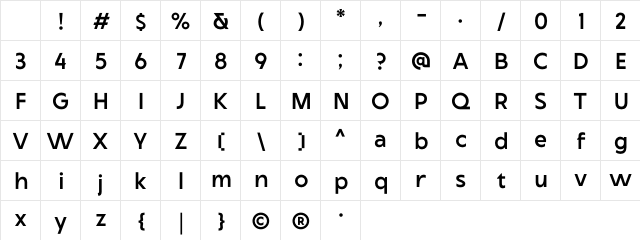
Complete Avoka ZT_Standard Version 1.0 Bd Regular glyph index. Displaying only characters natively supported by Avoka ZT_Standard Version 1.0 Bd Regular font.
Avoka ZT_Standard Version 1.0 Bd is a composed and adaptable typeface that performs quietly and consistently across a wide range of design contexts. Its bold stroke weight gives it real presence on the page.